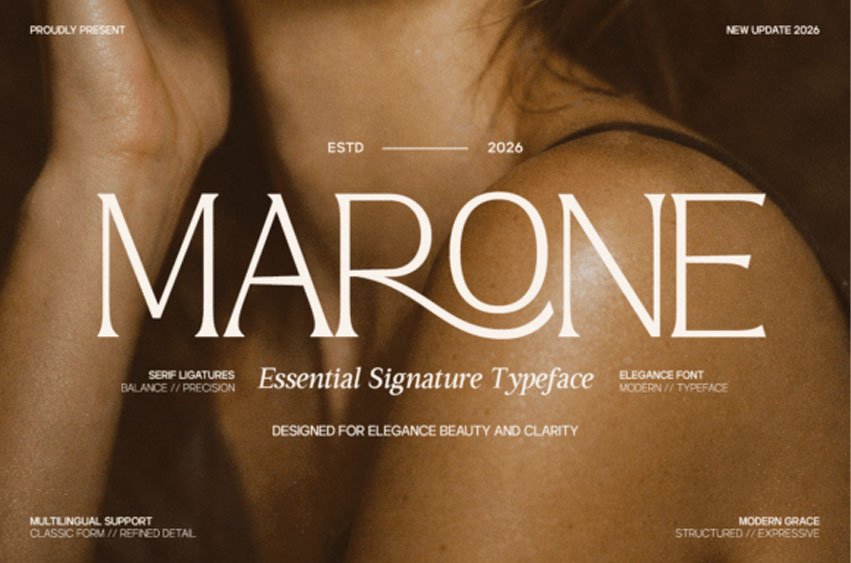
Marone Font is a refined serif typeface designed to express elegance, beauty, and clarity. Built with balanced proportions, graceful curves, and sophisticated detailing, Marone delivers a timeless typographic voice that feels both modern and classic.
Crafted for both digital and print use, Marone performs beautifully across branding, editorial layouts, luxury packaging, and high-end visual compositions. Its refined structure ensures readability, while its expressive details elevate the overall aesthetic.
Whether used for elegant headlines, signature-style branding, or modern editorial design, Marone brings sophistication, clarity, and expressive serif beauty to your typography.